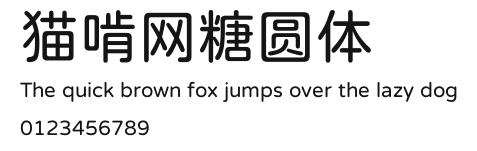
猫啃网糖圆体.ttf is a modern, elegant sans-serif font designed for ultimate readability and visual harmony. Perfect for branding, headlines, web design, and print materials.